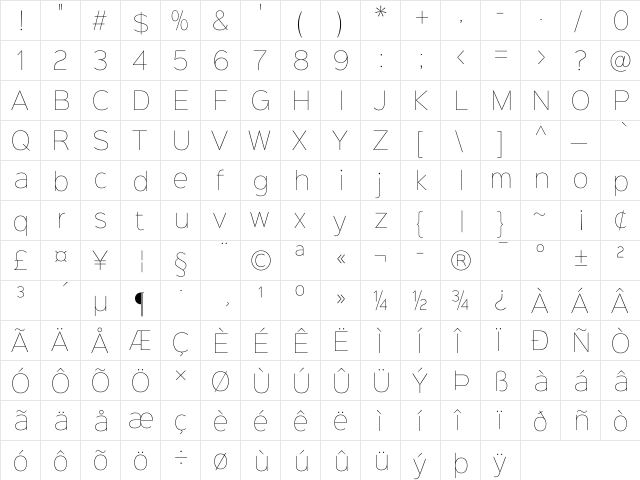
Sinkin Sans 100 Thin 100 Thin Font Preview
Sinkin Sans 100 Thin 100 Thin
Sinkin Sans 100 Thin 100 Thin Font Details
| Style | 100 Thin |
| Foundry | K-Type |
| Designer | Keith Bates |
| Copyright | Sinkin Sans 100 Thin by Keith Bates 014 https://www.k-type.com Sinkin Sans is a simple, pleasantly proportioned sans serif with tiny, inconspicuous notches that sink into vertical strokes adding highlights to congested corners. |
Design Context for Sinkin Sans 100 Thin Typeface
Sinkin Sans 100 Thin offers clean, dependable letterforms without strong stylistic allegiance, making it a practical choice for designers who need flexibility. The delicate stroke weight brings airiness and refinement to layouts.